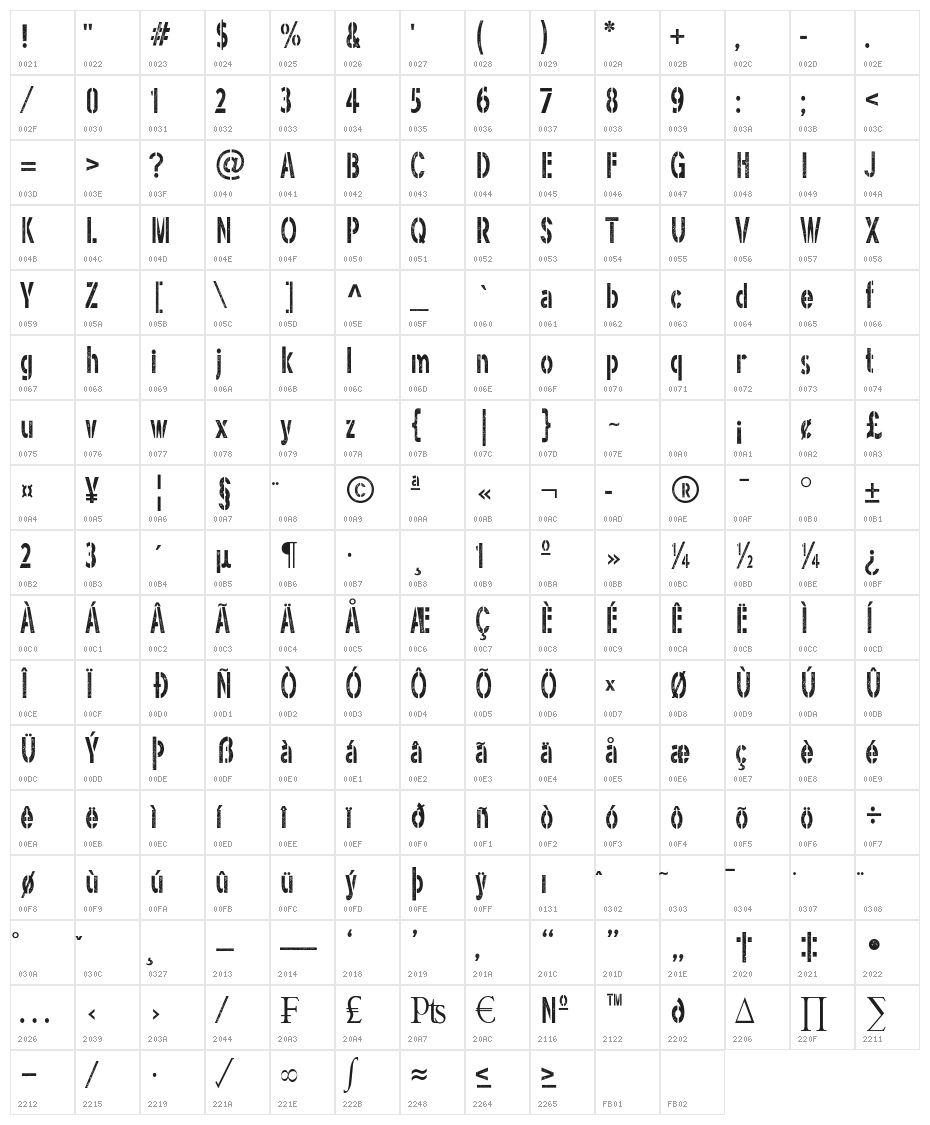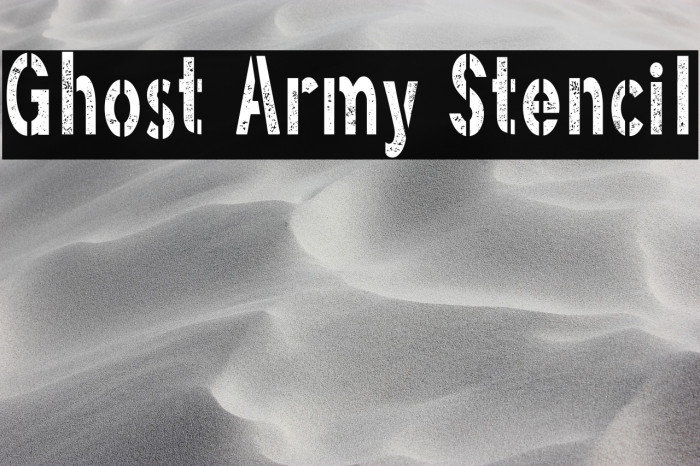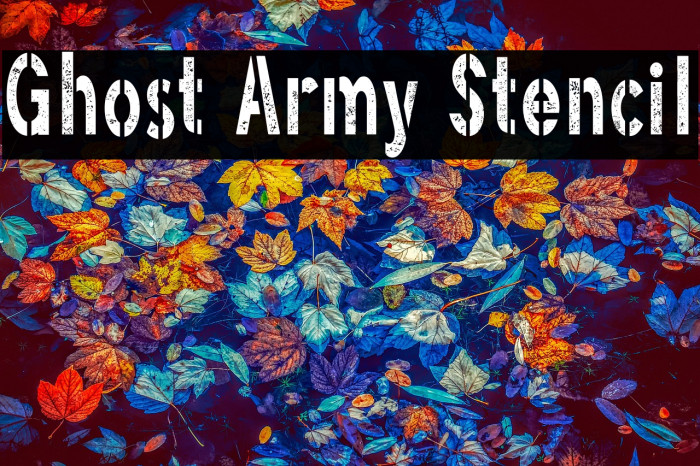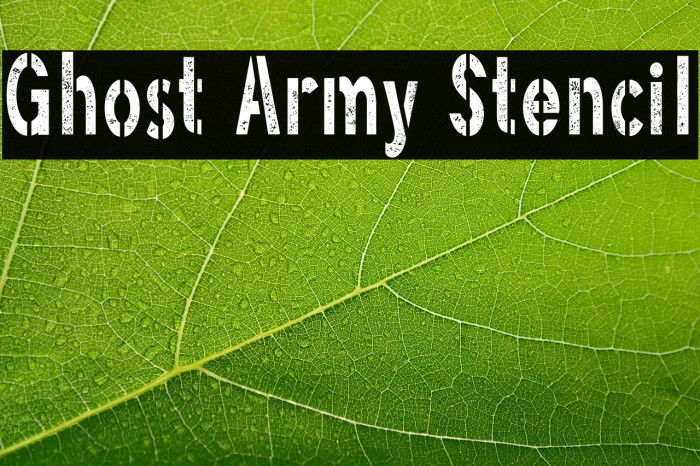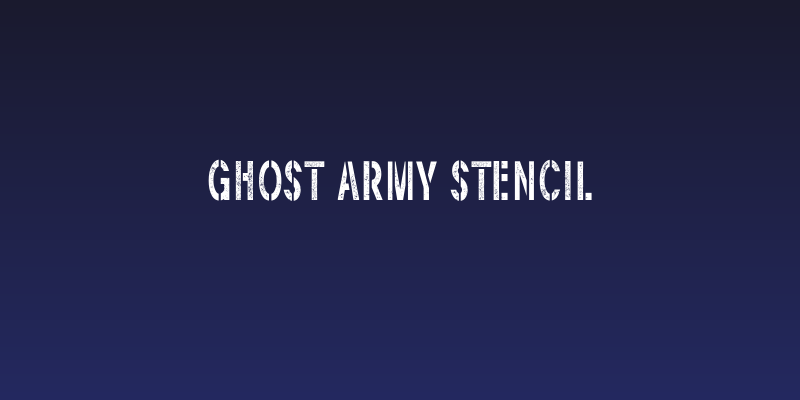
Ghost Army Stencil Font
Ghost Army Stencil Description
This font features a bold, stencil-like design with a distressed texture, giving it a rugged and military-inspired appearance. The uppercase and lowercase letters are consistent in style, with sharp edges and a blocky structure. The numbers and special characters maintain the same distressed and bold characteristics, making the font cohesive across all elements. The texture adds a vintage and worn feel, reminiscent of old military equipment or signage. This font is highly legible and impactful, suitable for designs that require a strong and assertive presence.
| Proposed Projects | Ideal for military-themed posters, vintage-style branding, outdoor adventure logos, and bold signage. |